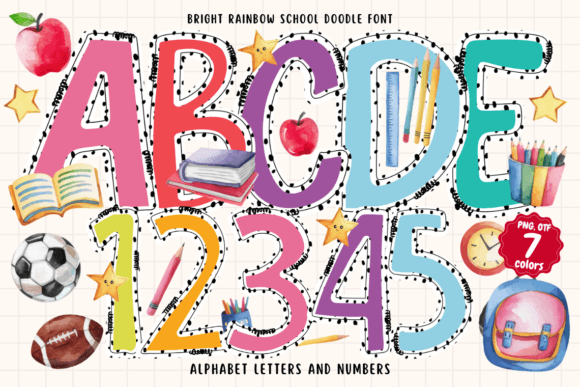
Brighten Up Your Designs with Bright Rainbow School Doodle Font
Have you ever been working on a project, trying to match the perfect font to the vibe you’re going for, but nothing seems quite right? I recall a recent experience where I was designing a birthday invitation for a friend’s kid, and I wanted something that screamed fun, playfulness, and a dash of whimsy. That’s when I stumbled upon the Bright Rainbow School Doodle Font, and it instantly brought my design to life!
• ✨ Vibrant and Playful: The Bright Rainbow School Doodle Font is exactly what it promises—a lively and colorful handwritten typeface that adds a cheerful and festive touch to any project.
• 🎨 Customizable: With its doodle accents and rainbow hues, you can easily customize your text to fit the theme of your project, whether it’s for a birthday invitation, school project, or holiday decoration.
The Inspiration Behind Bright Rainbow School Doodle Font
The creator of Bright Rainbow School Doodle Font was inspired by the joy and creativity of school days and the simplicity of doodling. They aimed to capture the essence of childhood creativity and translate it into a font that could bring fun and vibrancy to any project. The result is a font that feels both nostalgic and fresh, perfect for designers and crafters looking to add a playful touch to their work.
Bright Rainbow School Doodle Font is a versatile and fun addition to any designer’s toolkit. With its vibrant colors and playful doodle accents, it’s sure to bring a smile to anyone’s face. Whether you’re working on a school project, crafting a birthday invitation, or just looking for a way to add some whimsy to your designs, this font is a great choice.